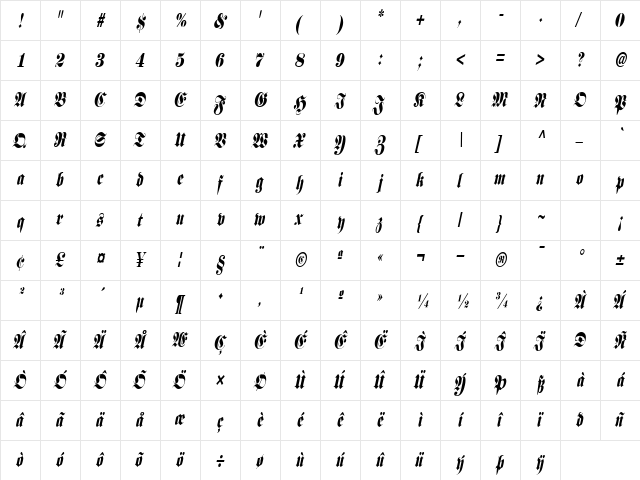
BerlinerCondensed Italic Font Preview
Design Context for BerlinerCondensed Typeface
BerlinerCondensed is a composed and adaptable typeface that performs quietly and consistently across a wide range of design contexts. Its italic angle brings a sense of urgency and motion to the letterforms. Its narrow stance lets it pack a punch even in space-constrained designs.
Pro Tip: Try BerlinerCondensed for annotation and caption copy alongside an upright companion — the contrast in angle creates a dynamic but ordered typographic system.